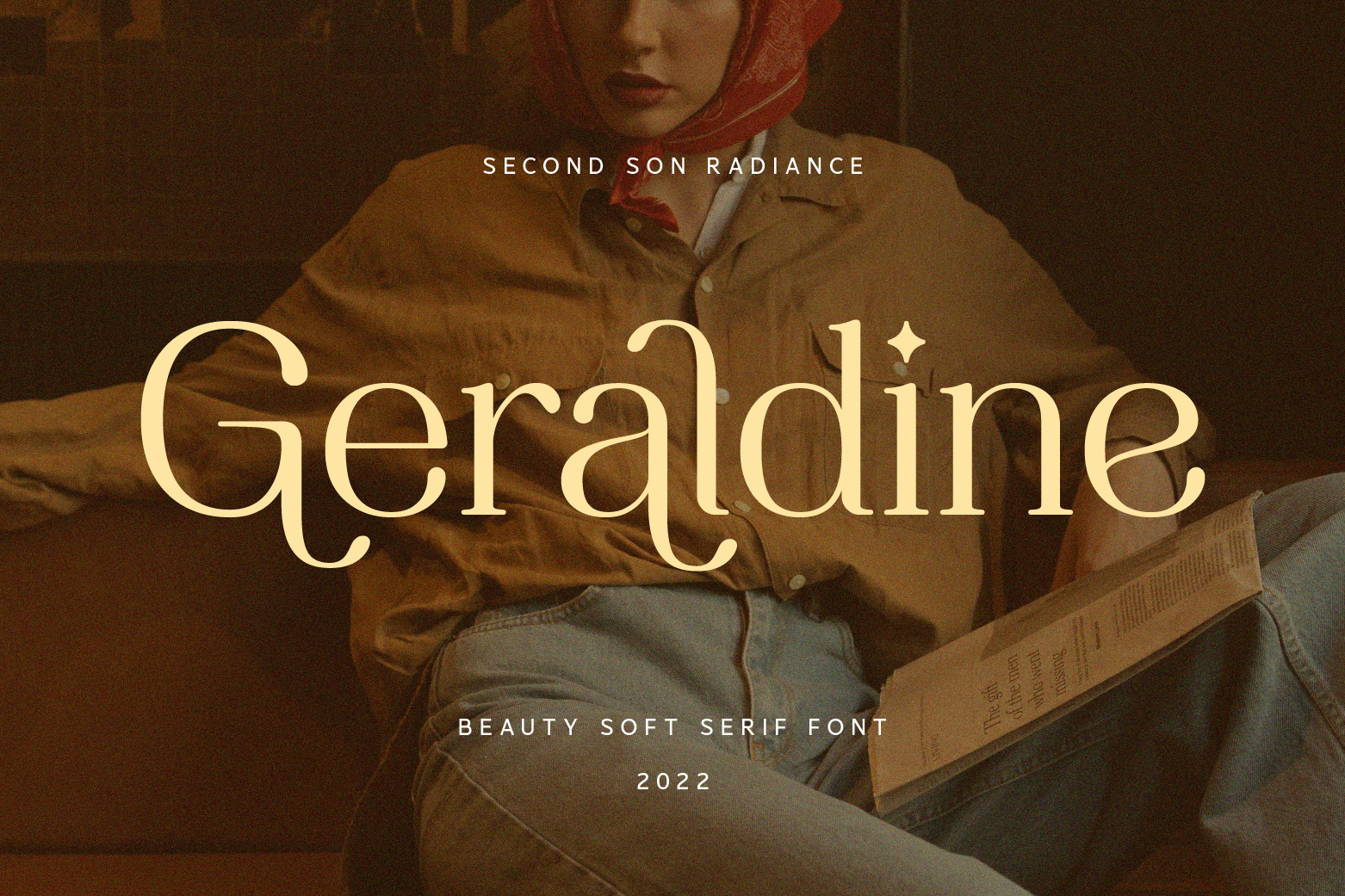
SS Geraldine - Beauty Serif Font
Geraldine - Modern Soft Serif - Beauty Medium Serif Font
Geraldine is a beauty modern soft serif font with alternatives, ligatures, and multilingual support. Perfect for editorial projects, logo design, clothing branding, product packaging, magazine headers, or simply as a stylish text overlay to any background image.